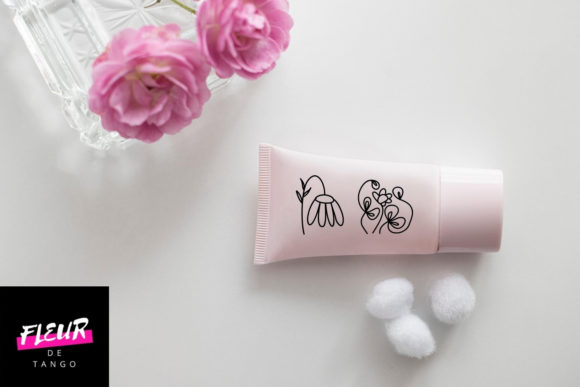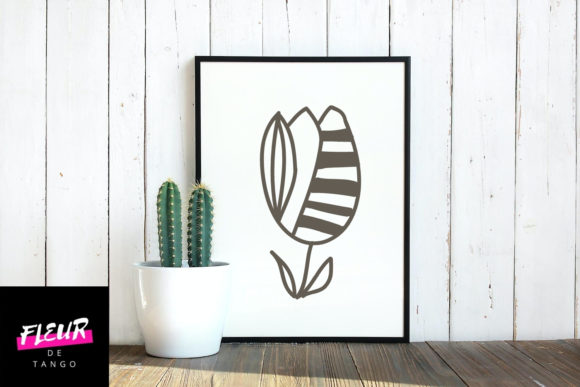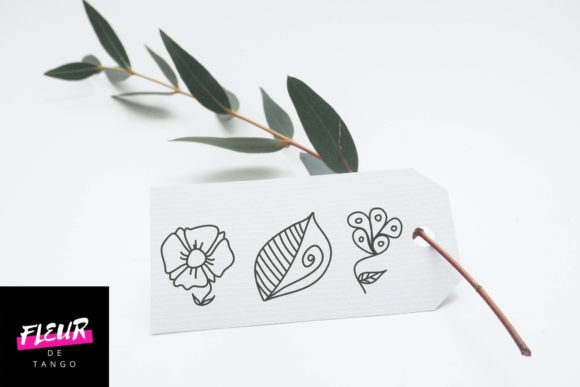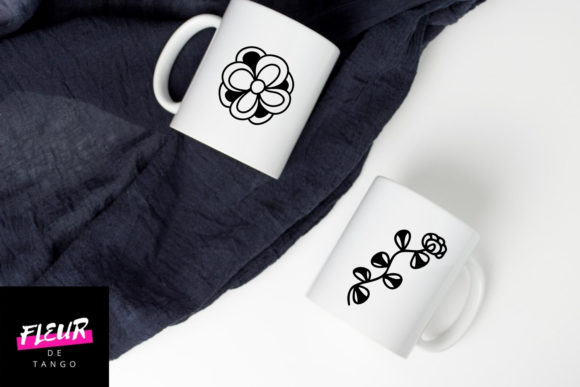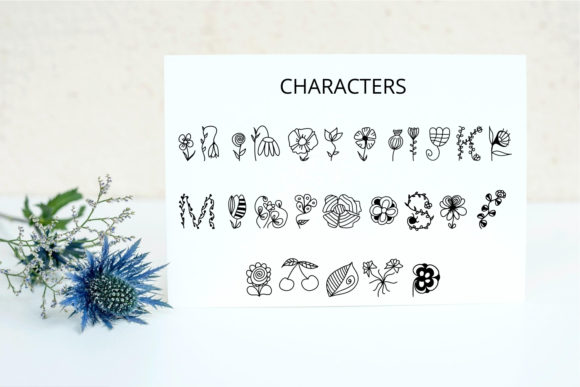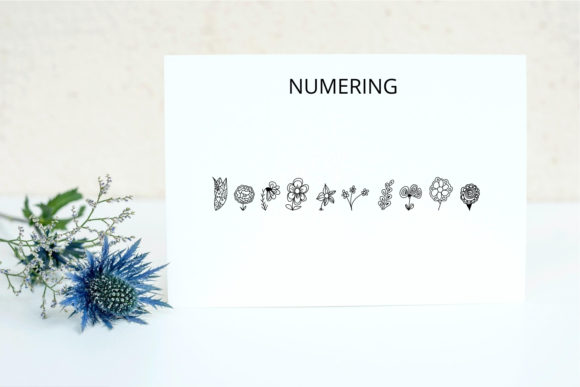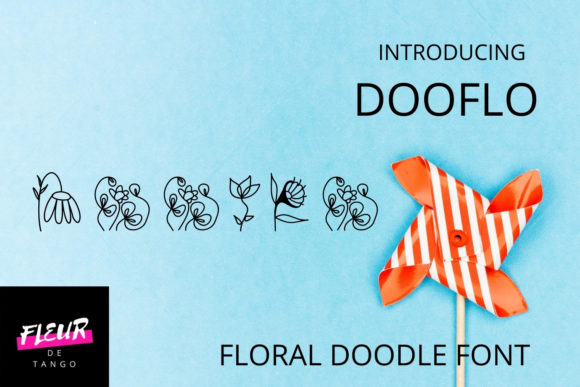
Discover the Charm of Dooflo Font: Elevate Your Designs with this Sweet Dingbats Font
Are you tired of using the same old fonts in your designs? Look no further than Dooflo Font, a unique and incredibly sweet dingbats font that’s sure to make your creative ideas stand out. In this article, we’ll dive into the world of Dooflo Font, exploring its features, benefits, and uses, and show you how to incorporate it into your designs to take them to the next level.
What is Dooflo Font?
Dooflo Font is a dingbats font that is characterized by its playful, whimsical, and charming design. It’s a collection of symbols, icons, and illustrations that can be used to add a touch of personality to your designs. The font is made up of a wide range of characters, including animals, objects, and abstract shapes, all designed to bring a smile to your face.
Features of Dooflo Font
So, what makes Dooflo Font so special? Here are just a few of its key features:
- Unique and quirky design: Dooflo Font is unlike any other font you’ll find. Its characters are designed to be fun, playful, and eye-catching, making it perfect for designs that need a bit of personality.
- Wide range of characters: The font includes a vast array of characters, from cute animals to everyday objects, giving you endless options for creative expression.
- Versatile: The font can be used in a variety of design applications, from digital projects to print materials.
- Adds a touch of whimsy: Dooflo Font is the perfect way to add a bit of fun and personality to your designs, making them more engaging and memorable.
- Stand out from the crowd: With its unique design, Dooflo Font is sure to make your designs stand out from the crowd, grabbing the attention of your audience.
- Increases creativity: The font’s playful design is sure to inspire your creativity, helping you to come up with fresh and innovative ideas.
- Perfect for crafters and designers: Dooflo Font is a must-have for crafters and designers looking to add a personal touch to their work.
Using Dooflo Font in Your Designs
So, how can you use Dooflo Font in your designs? Here are a few ideas to get you started:
- Digital projects: Use Dooflo Font in your digital projects, such as social media graphics, blog posts, and email newsletters.
- Print materials: Add the font to your print materials, such as brochures, flyers, and business cards.
- Crafting projects: Use Dooflo Font in your crafting projects, such as card making, scrapbooking, and journaling.
- Branding and marketing: Use the font to create unique and memorable branding and marketing materials.
In conclusion, Dooflo Font is a unique and incredibly sweet dingbats font that’s sure to elevate your designs and make them stand out. With its playful design, wide range of characters, and ease of use, it’s the perfect addition to any design project. Whether you’re a designer, crafter, or simply someone looking to add a bit of personality to your work, Dooflo Font is a must-have. So why wait? Download Dooflo Font today and discover a world of creative possibilities!